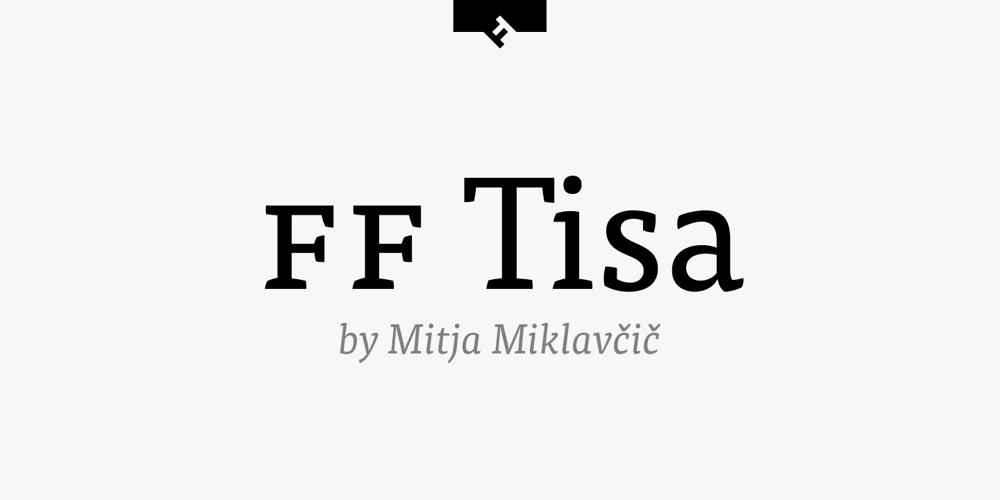
FF Tisa Font Family was designed by Mitja Miklavcic and published by FontFont. FF Tisa contains 14 styles and family package options. Slovenian type designer Mitja Miklav?i? created this serif FontFont between 2008 and 2010. The family has 14 weights, ranging from Thin to Black (including italics) and is ideally suited for advertising and packaging, book text, editorial and publishing, logo, branding and creative industries, poster and billboards, small text as well as web and screen design. FF Tisa provides advanced typographical support with features such as ligatures, small capitals, alternate characters, case-sensitive forms, fractions, and super- and subscript characters. It comes with a complete range of figure set options – oldstyle and lining figures, each in tabular and proportional widths. In 2007, FF Tisa received the TDC2 award. This FontFont is a member of the FF Tisa super family, which also includes FF Tisa Sans.